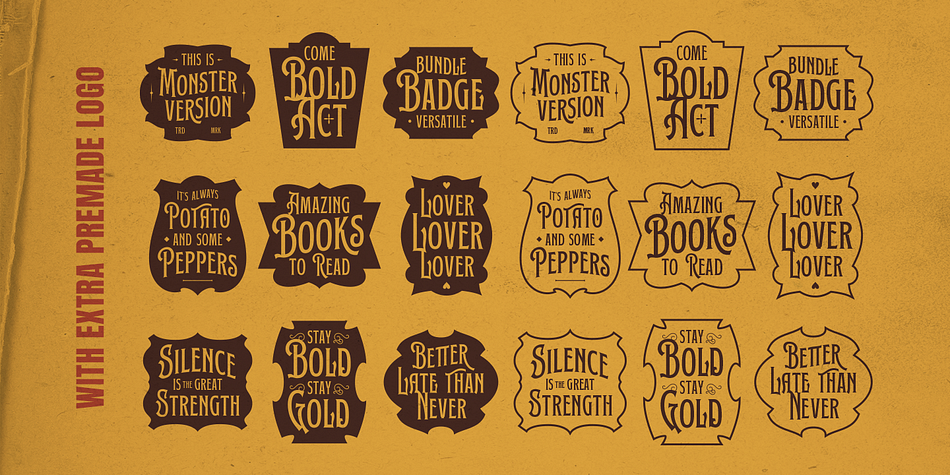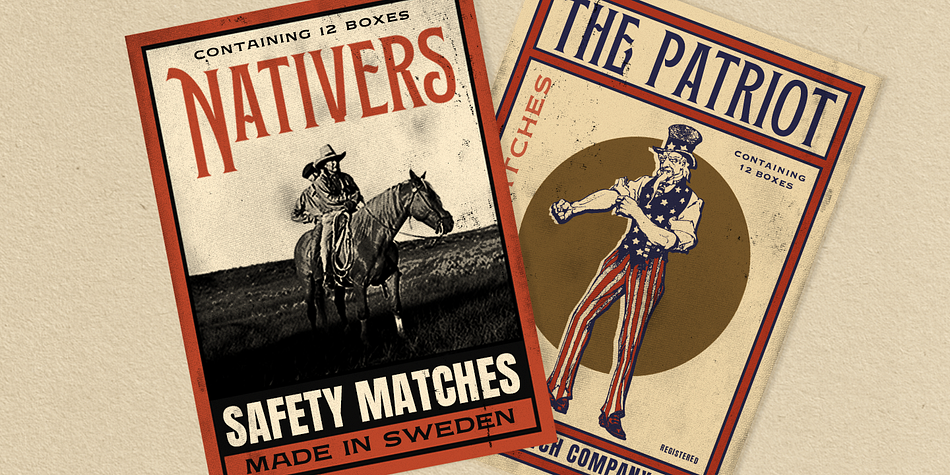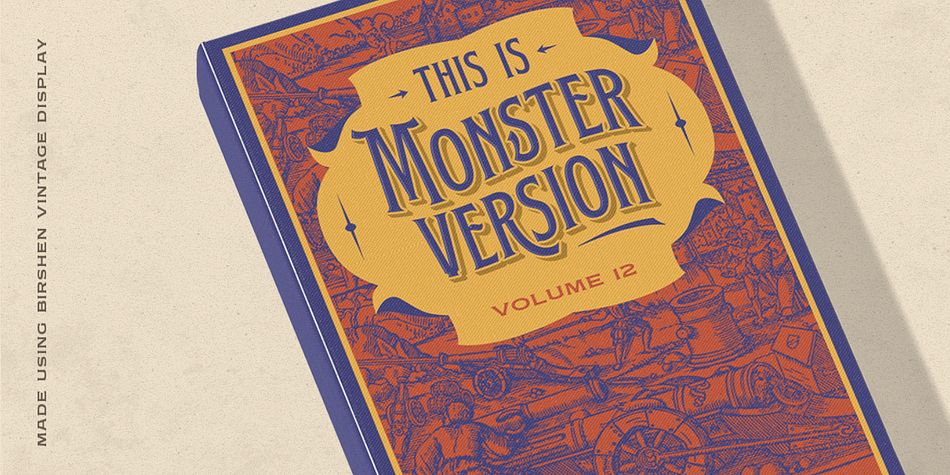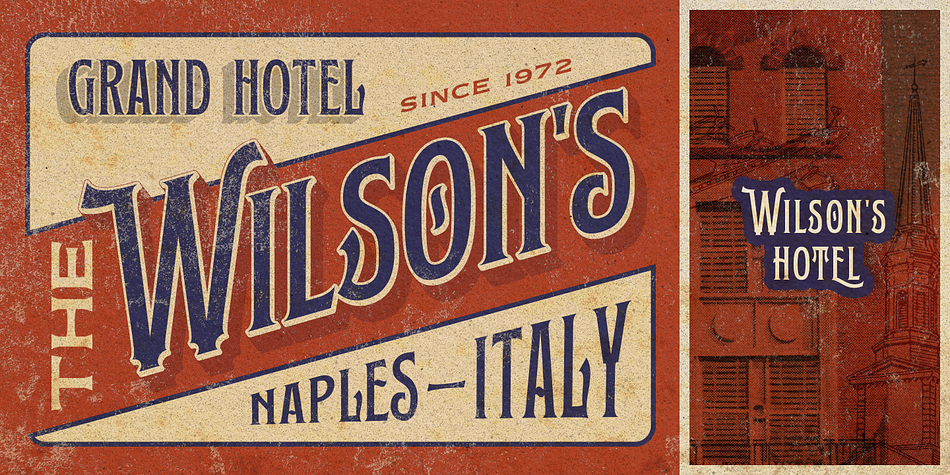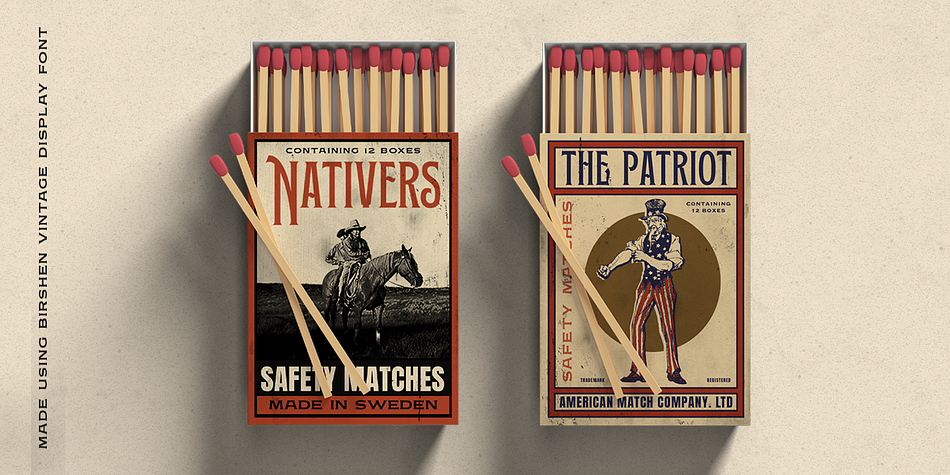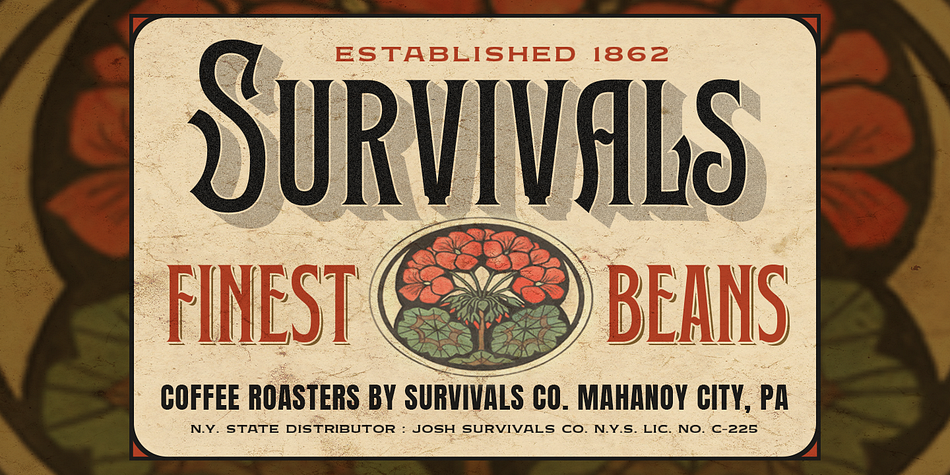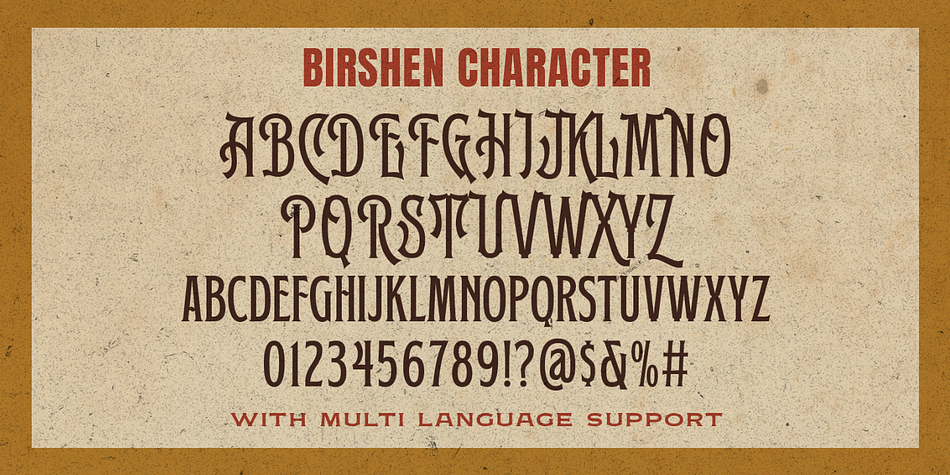
Birshen
Designed by Hendry Juanda, Birshen is a display and display serif font family published by Letterhend Studio.
Birshen is a vintage serif with classic looks, inspired by 60s and 70s signages. This font perfectly made to be applied especially in logo, and the other various formal forms such as invitations, labels, logos, magazines, books, greeting / wedding cards, packaging, fashion, make up, stationery, novels, labels or any type of advertising purpose.
- Alternates & Ligatures